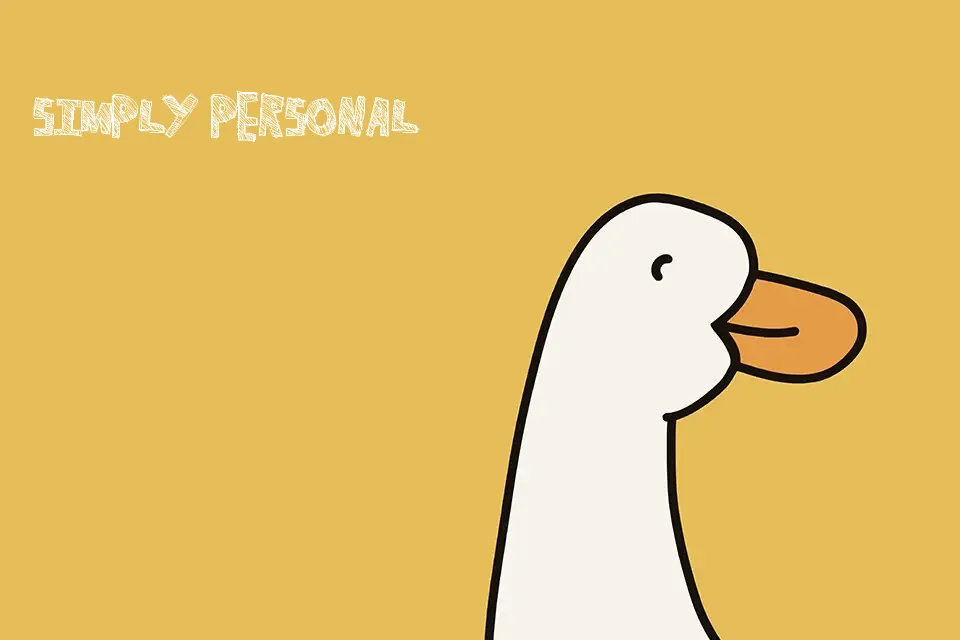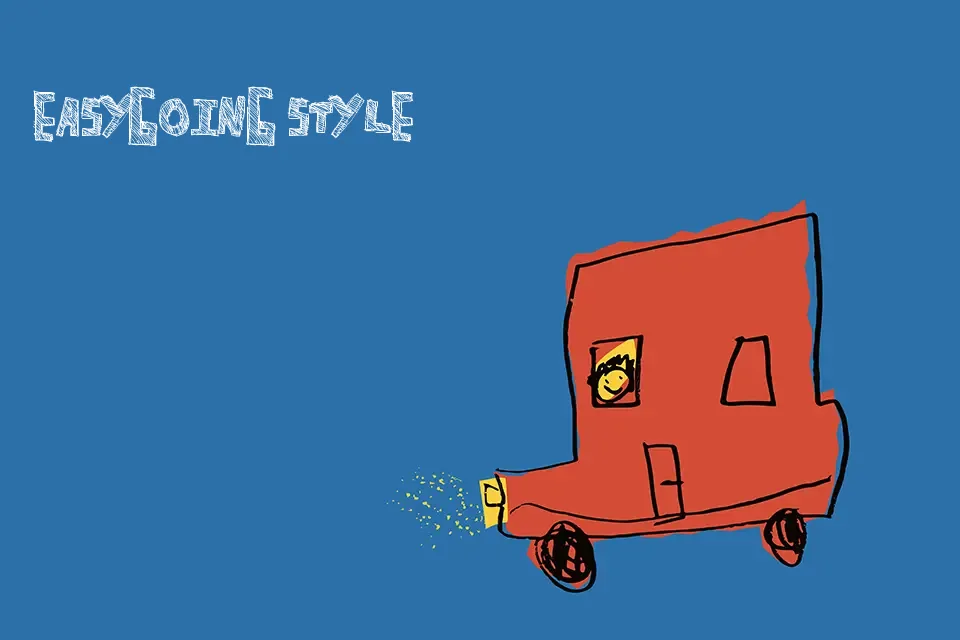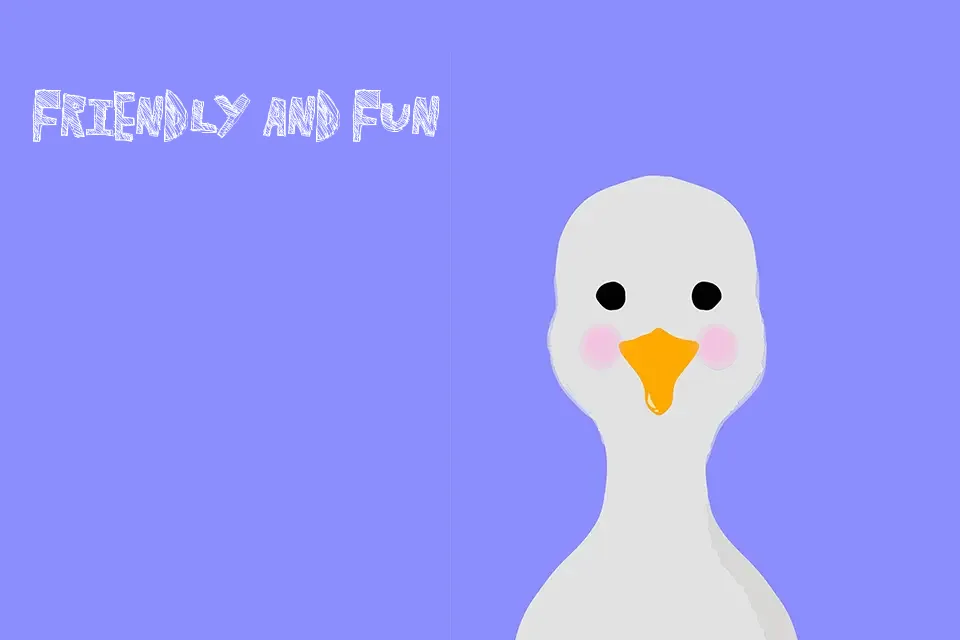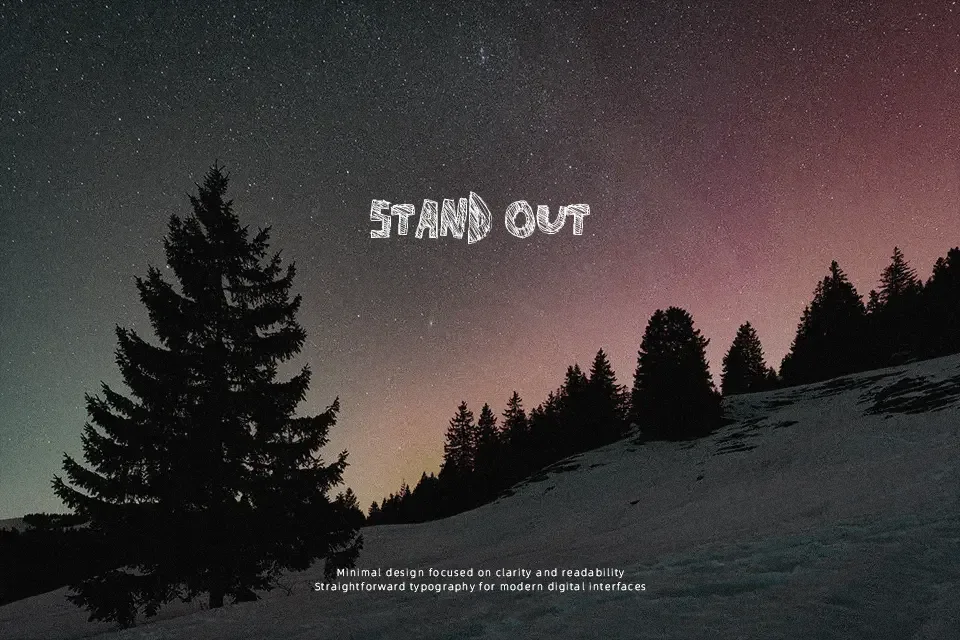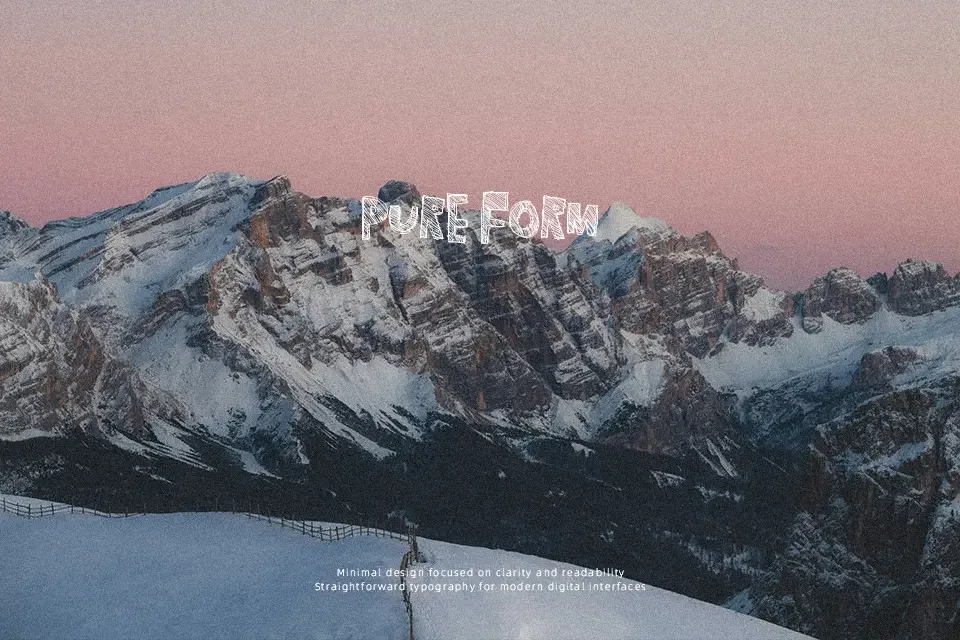
School Notes Font
School Notes Font is built with unrefined, sketched contours that give each character the spontaneous feel of quick pencil lettering. The design features open interior spacing, irregular stroke weights, and varied proportions that reinforce its casual handmade tone. Moderate letter spacing preserves character separation across larger headers, allowing words to remain legible when used for comic covers, children’s packaging, and creative craft banners. However, the textured edges and inconsistent baseline alignment make the typeface unsuitable for extended body text or dense editorial paragraphs. In practice, the font provides engaging visual personality when kept strictly to prominent titles and short phrases.
Best For: classroom activity sheets, comic book covers, children’s packaging, craft banner headlines
Not Ideal For: continuous body text, corporate annual reports, mobile app interface labels, legal documents
Perfect for headline, kids, and packaging, with a creative and cartoon style.